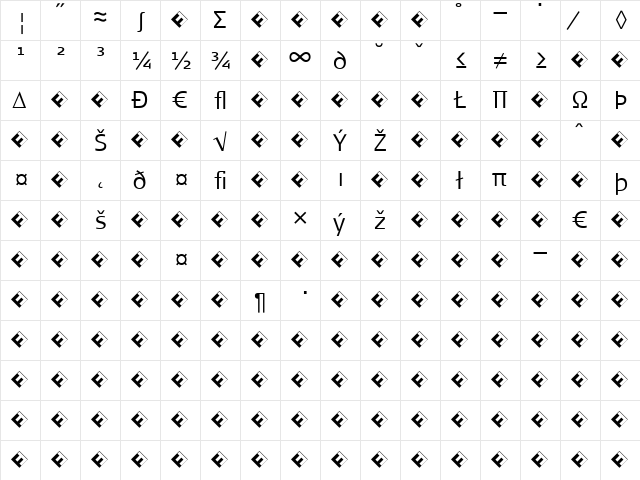
SignaNormal-LightExpert Regular
| Designer | Ole Soendergaard |
Design Context for SignaNormal-LightExpert Typeface
SignaNormal-LightExpert offers clean, dependable letterforms without strong stylistic allegiance, making it a practical choice for designers who need flexibility. Its slender proportions lend an understated elegance to any composition.